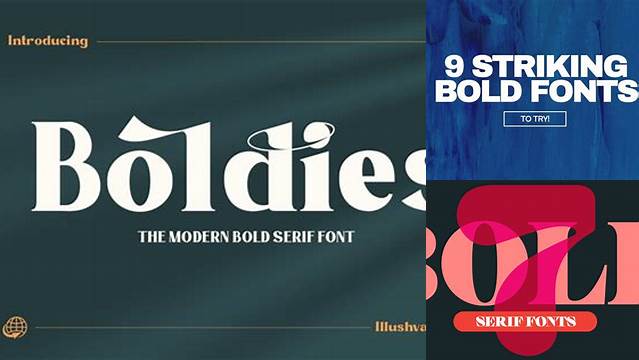
Free Bold Serif Fonts: Best Choices For Designers
Bold Serif Free Fonts: Unleash Your Design's Power
Hey guys, are you ready to dive into the awesome world of typography? We're talking about something super important for all you designers, marketers, and anyone who wants to make their words look fantastic: bold serif free fonts! These fonts are seriously versatile, lending themselves to everything from headlines that scream for attention to body text that's both readable and stylish. Finding the perfect font can feel like searching for a hidden treasure, but don't worry – I'm here to guide you through the best of the best, all without costing you a penny. Let's jump in and discover some killer bold serif fonts that will take your designs to the next level.
So, what exactly makes a serif font bold? Well, it's all about the weight. In typography, "weight" refers to how thick or thin the strokes of a letter are. A bold font has thicker strokes, making it stand out and grab the eye. This extra emphasis is perfect for headlines, titles, and any text you want to immediately draw attention to. The "serif" part? That's about those little decorative strokes, or "feet," at the end of each letter. Serif fonts often have a classic, elegant feel, which can be incredibly versatile when combined with a bold weight. They work well for branding, print materials, websites, and pretty much anything you can imagine!
Choosing the right font can seriously make or break your design. Think of it like choosing the right outfit; it has to fit the occasion and reflect your brand's personality. You wouldn't wear a tuxedo to a casual brunch, right? Similarly, you wouldn't use a super playful font for a serious legal document. Bold serif fonts, in particular, are great for conveying a sense of authority, tradition, and reliability, while still being eye-catching. They're a perfect blend of the old and the new. And the best part? I'm going to show you how to get some amazing ones totally free! So, grab a coffee, get comfy, and let's find you some fonts that will make your work shine. Whether you are a seasoned designer or just starting out, finding the right bold serif font can significantly improve the impact of your projects, ensuring your message is delivered with both clarity and style. From the sleek and modern to the classic and timeless, there is a bold serif font out there to suit your unique design needs, making your work not just visually appealing but also highly effective.
The Allure of Bold Serif Fonts: Why They Matter
Alright, let's dig a little deeper into why bold serif fonts are such a big deal. They are so popular for a reason! First off, bold serif fonts offer a certain gravitas. The thick strokes and the traditional serifs give a sense of history, reliability, and often, a touch of sophistication. This makes them ideal for brands that want to project an image of trust and expertise. Think of it: when you see a bold serif font used in a headline, it instantly communicates confidence. It's like the font is saying, "Hey, pay attention, this is important!" This is why you see them everywhere, from magazine covers and book titles to website headers and product packaging. They demand attention without being overwhelming.
Another major advantage is their readability. While some fonts are designed for flair and style, bold serif fonts often balance visual appeal with practicality. The serifs help guide the eye across the page, which can improve readability, especially in longer blocks of text. The added weight makes the letters distinct and less likely to blur together. Of course, this depends on the specific font and how it's used, but generally speaking, bold serifs can be a great choice for both headlines and body text. When you're choosing a font for your project, always consider its readability. Test it out in different contexts to make sure it works. Imagine trying to read a menu in a dimly lit restaurant with a hard-to-read font. No fun, right? Similarly, you don't want your website visitors squinting and struggling to decipher your content. Bold serif fonts solve this problem.
Finally, bold serif fonts just look good. There's a certain aesthetic appeal to them that's hard to deny. They evoke a feeling of classic design, which can be timeless. They look great alongside clean, modern designs. They have a versatility that means they can fit into a wide range of design projects. Think about the contrast – a bold, classic serif font paired with a minimalist website layout. The result can be striking and memorable. These fonts have a natural elegance that other fonts lack. The combination of the bold strokes and the serifs creates a visual experience that is both interesting and easy to read. Bold serif fonts are not just functional; they are an art form. Therefore, choosing the right one can make a lasting impression.
Top Free Bold Serif Fonts You Need to Know
Playfair Display: This font is a classic for a reason. It's a high-contrast serif font with a slightly old-fashioned feel, but it's also incredibly elegant. The bold weight is perfect for headlines, and it's great for anything where you want to convey a sense of sophistication. It's designed specifically for display use, so it looks fantastic at larger sizes. Playfair Display is a free download from Google Fonts, making it super easy to access. Its clean lines and sharp serifs provide excellent readability while maintaining a touch of historical elegance, making it perfect for projects requiring a balance of style and function. You'll find Playfair Display appearing in a wide variety of projects, from book covers to website headers, and its versatility is key to its popularity. The font's availability on Google Fonts ensures that you can easily integrate it into your design workflow, providing a hassle-free experience for both personal and commercial projects.
Roboto Slab: While Roboto is most known for its sans-serif sibling, Roboto Slab is a stellar font. This font provides excellent readability, which means it's a great choice for body text as well as headlines. It has a modern, clean look that works well in a wide range of design projects. This is one of the most versatile font families out there, and it's also available on Google Fonts, making it easy to implement. The bold weight provides a strong visual presence. Whether you are designing a website, a brochure, or any other project, Roboto Slab is a reliable and adaptable choice. The combination of its professional appearance and readability makes it ideal for projects that need to be clear, concise, and accessible.
Montserrat: Okay, so Montserrat isn't technically a serif font, but it has a bold, geometric design that's worth mentioning. It's a sans-serif, but it has such a strong presence that it often feels like a bold serif. It's super versatile and works well in many different contexts. This font is clean, modern, and really easy to read. It is a solid choice for both headers and body text. Designed to capture the spirit of urban typography, Montserrat provides a bold and contemporary aesthetic that's perfect for projects needing a touch of modernity. It offers excellent legibility, making it perfect for both headlines and body text.
Lora: Lora is another beautiful option from Google Fonts. It has a contemporary, well-balanced design. This font is perfect for body text and headlines. It's a great choice for websites and other digital applications. Lora is known for its readability and its ability to work well in different contexts. It is known for its balanced contemporary design. This makes it ideal for projects needing both style and function. Lora offers a harmonious blend of readability and aesthetic appeal. Its smooth curves and balanced proportions make it easy on the eyes, enhancing user experience. This font is an excellent choice for a wide variety of projects, including websites, blogs, and printed materials.
Arvo: Arvo is a geometric slab-serif typeface. This is another excellent choice for headlines and titles. Arvo is known for its clear, straightforward appearance. Its solid construction makes it easy to read. It's a good option for projects that need a strong visual impact. It is characterized by its clean lines and geometric shapes, making it an excellent choice for projects that need a bold and modern look. Its versatility makes it perfect for a variety of design projects. With Arvo, you can achieve a balance of elegance and contemporary appeal. This font has an attractive look, ensuring that your headlines and titles are memorable and highly visible.
Tips for Using Bold Serif Fonts Like a Pro
Alright, you've got the fonts. Now, how do you use them to their full potential? Here are some quick tips to help you get the most out of your bold serif fonts:
- Balance is Key: Remember that you don't need to use bold serif fonts everywhere. They work best when used strategically, like for headlines, titles, or key call-to-actions. Balance them with other fonts, like sans-serifs, for body text or subheadings. This contrast can make your design more visually interesting.
- Consider Readability: Always make sure your chosen font is readable, especially at the size it will be displayed. Test it out! If you are using it for body text, ensure that it is legible at smaller sizes. Try it out on different devices to ensure it is looking great on every screen.
- Think About Your Brand: The font you choose should match your brand's personality. A classic, bold serif font can be perfect for a company that wants to project tradition and trust, while a more modern serif might be better for a trendier brand.
- Experiment with Pairing: Don't be afraid to try different pairings of fonts! Mix and match bold serifs with sans-serifs, or try a bold serif with a more delicate font. Experiment to discover what works best for your project. Using multiple fonts can enhance the visual appeal of your work.
- Master the Kerning: Kerning refers to the spacing between individual letters. Pay attention to this, especially in headlines, to ensure your text looks balanced and professional. Too much or too little kerning can make your text look awkward and difficult to read.
Where to Find More Free Fonts
Want to keep the font hunt going? Here are some of the best places to find more free fonts:
- Google Fonts: The gold standard! This is where you'll find many of the fonts I've mentioned, and thousands more. It is free, easy to use, and updated regularly.
- Font Squirrel: A great resource for high-quality, free fonts that are licensed for commercial use.
- DaFont: A massive database of fonts, but be sure to check the licensing before using any font.
- Behance and Dribbble: Designers often share free fonts on these platforms, so keep an eye out!
Final Thoughts: Unleash Your Inner Typography Wizard
And there you have it, guys! You're now armed with some amazing bold serif fonts and the knowledge of how to use them. Remember, typography is a powerful tool. It can make your designs more effective, beautiful, and engaging. Have fun experimenting, be creative, and don't be afraid to try new things. With these fonts and the tips I've shared, you're well on your way to becoming a typography wizard. So go out there, create some amazing designs, and let your work speak for itself. The world of design is waiting for your talent!